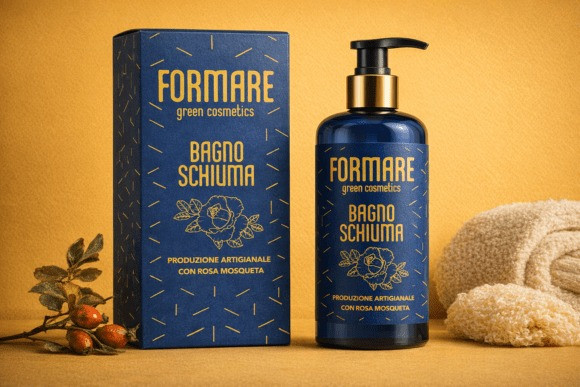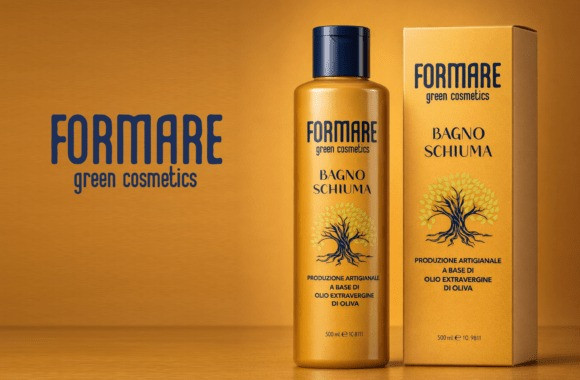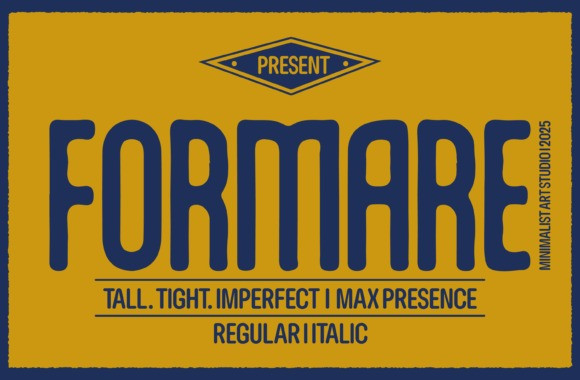
FORMARE FONT
Formare Font is a bold and expressive display font designed to make a strong visual statement.With its tall proportions, soft imperfections, and confident presence, Formare blends retro inspiration with modern character, making it ideal for brands that want to stand out.
This font works perfectly for logos, posters, packaging, headlines, editorial layouts, album covers, apparel, and creative branding projects. Its slightly irregular shapes give it an organic and handcrafted feel, while the condensed structure keeps compositions tight, powerful, and highly readable at large sizes.
Formare is not a neutral font — it’s designed to command attention, evoke personality, and elevate visual identity. Whether you’re creating bold typography for print or eye-catching digital designs, this font delivers maximum impact with minimal effort.